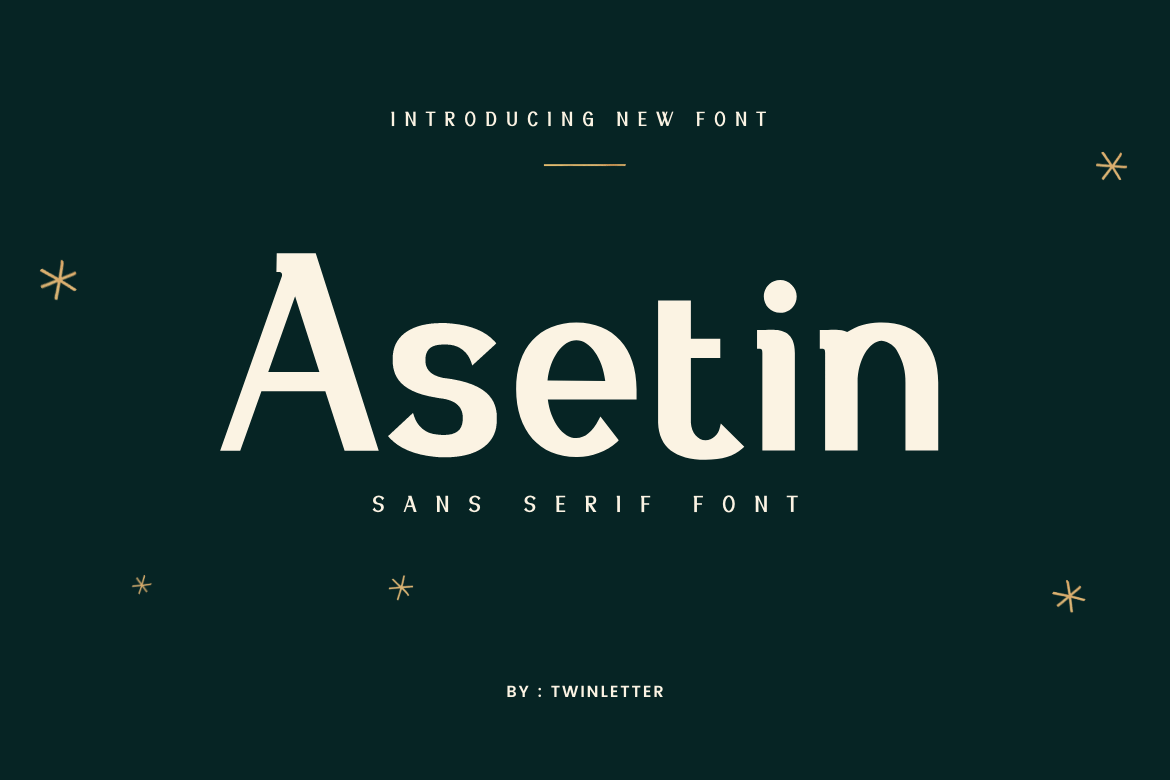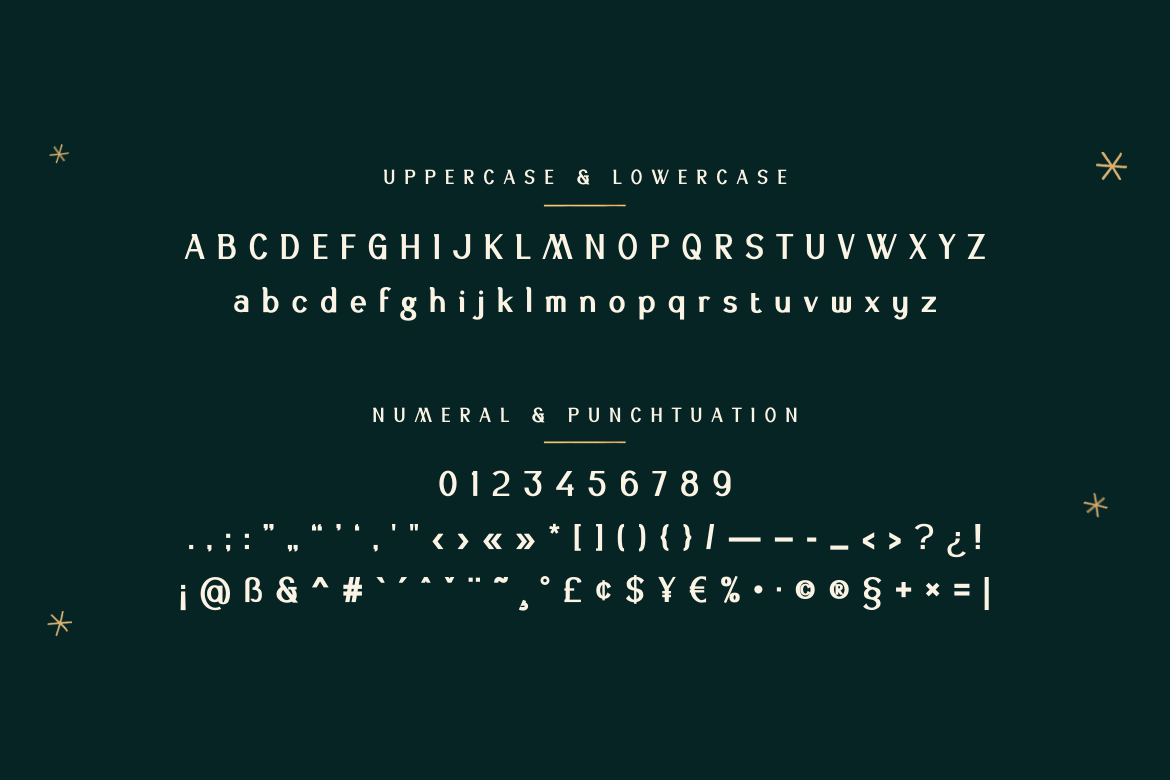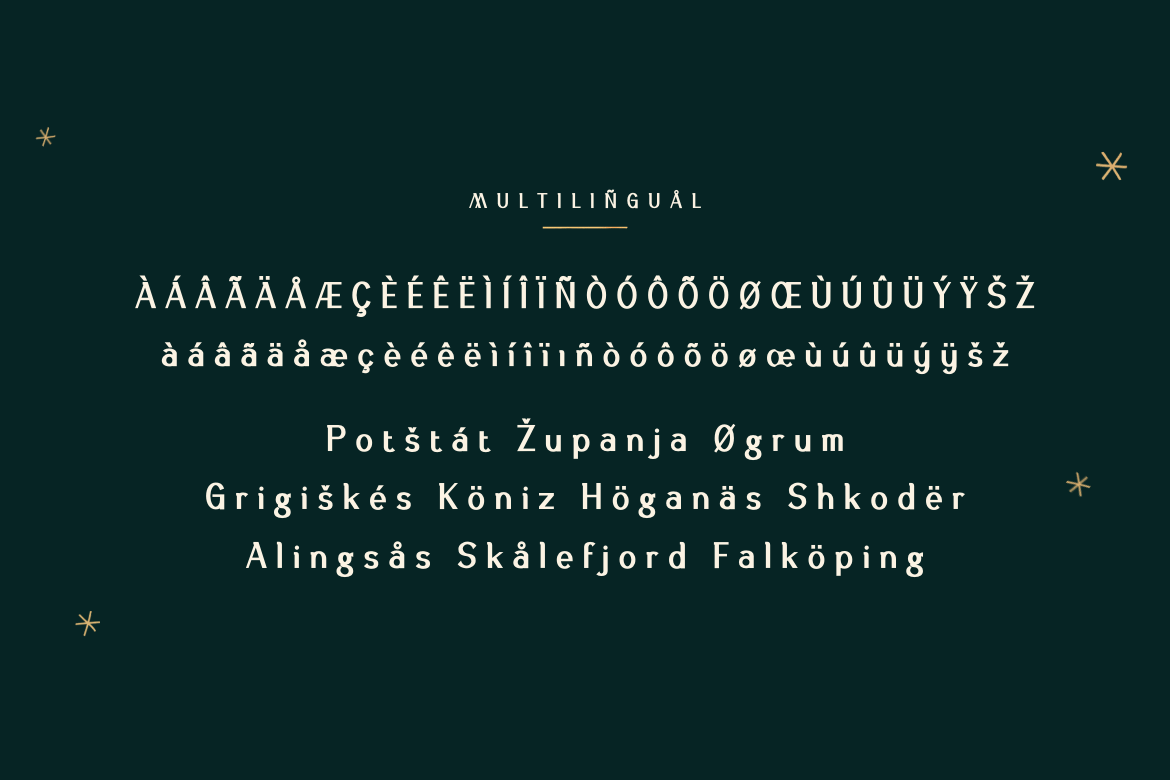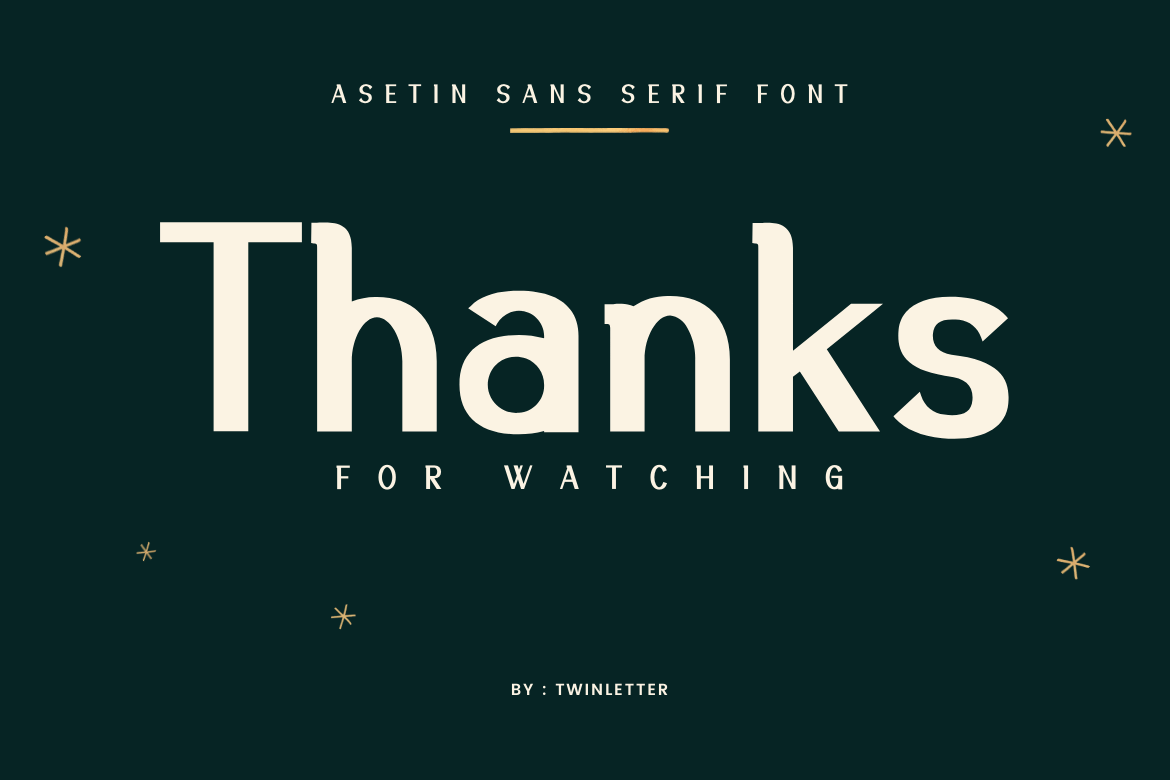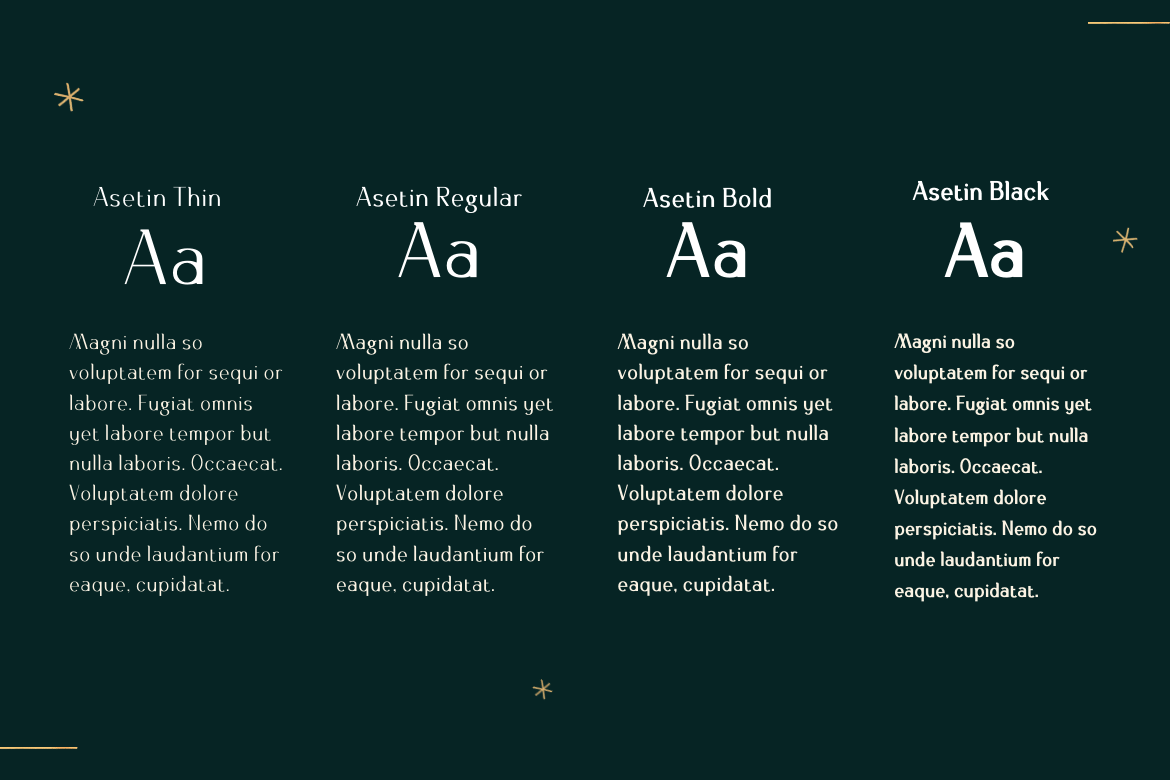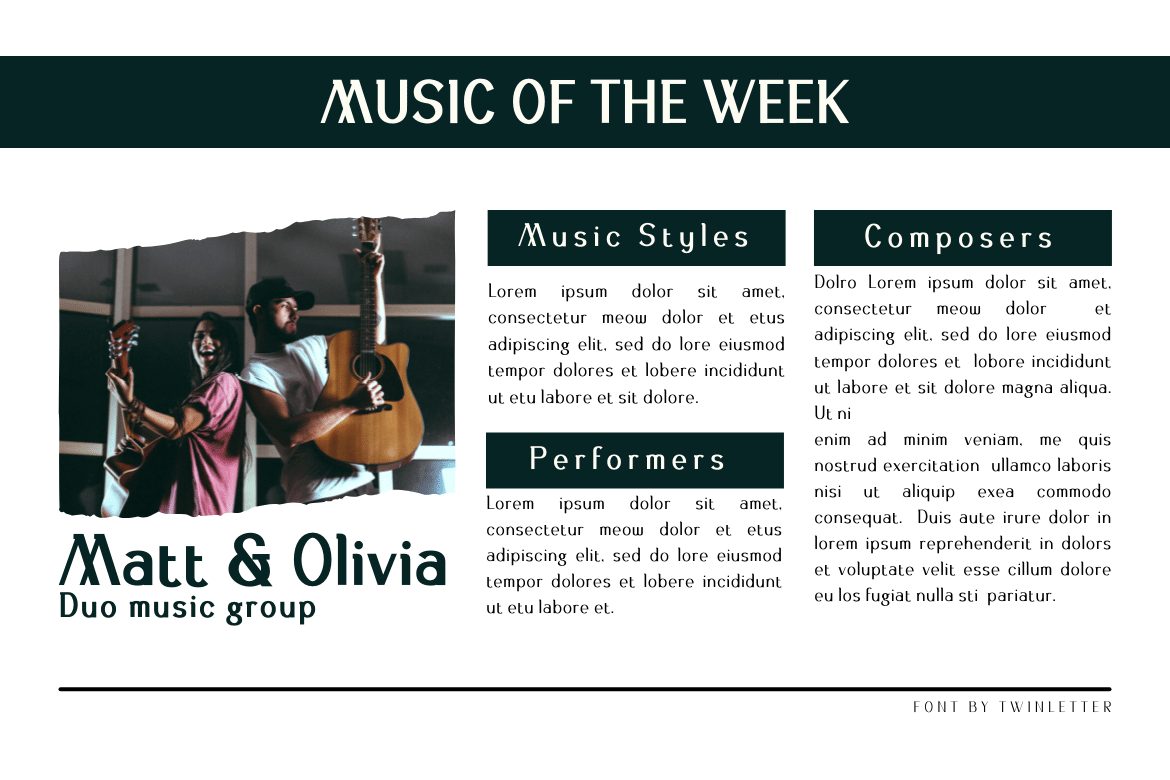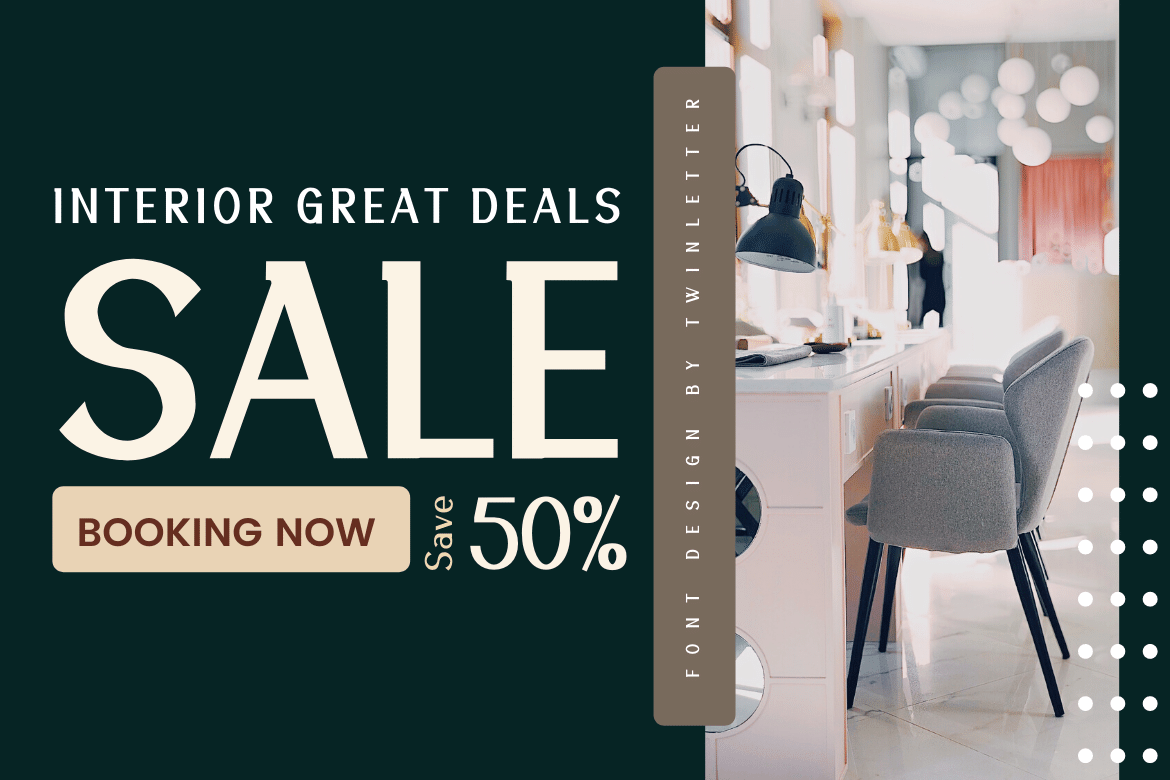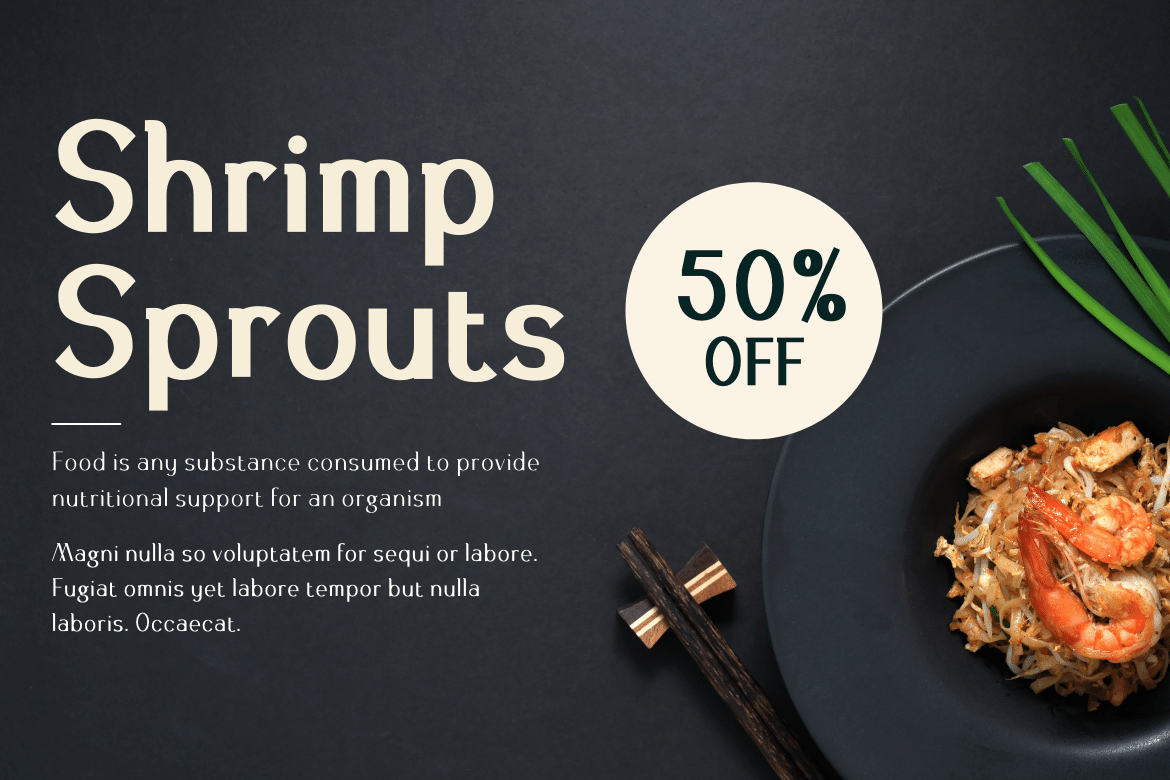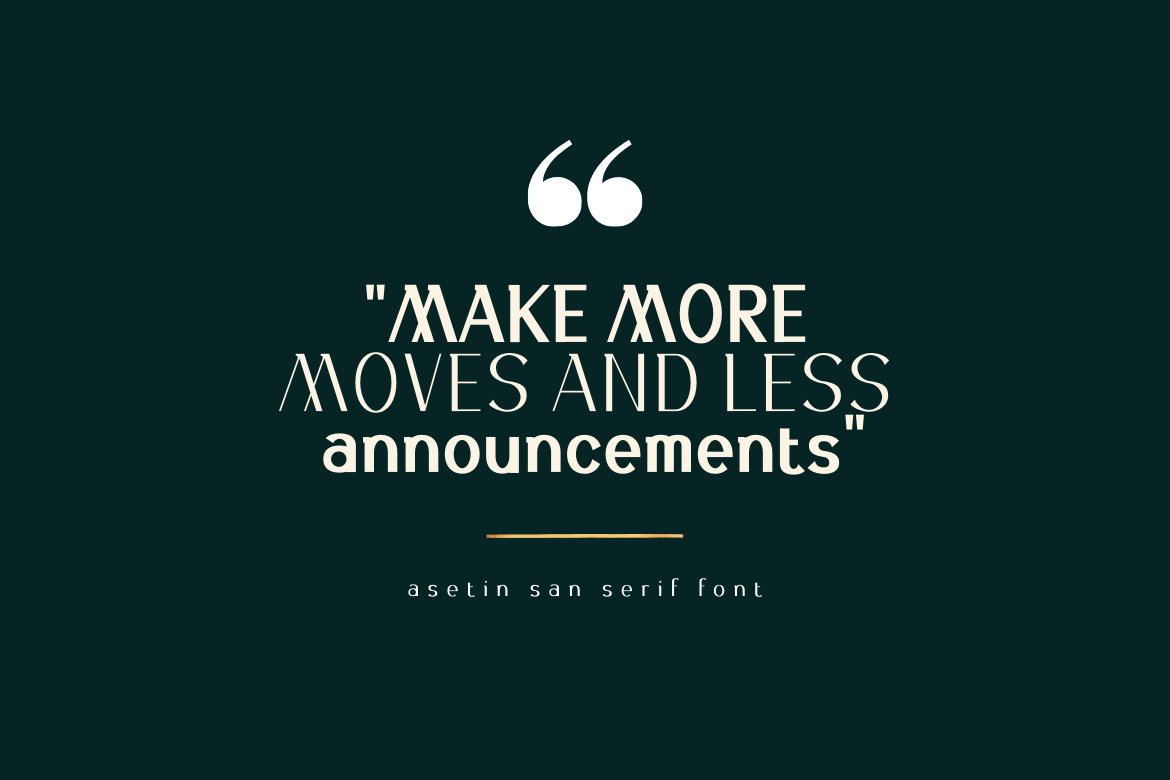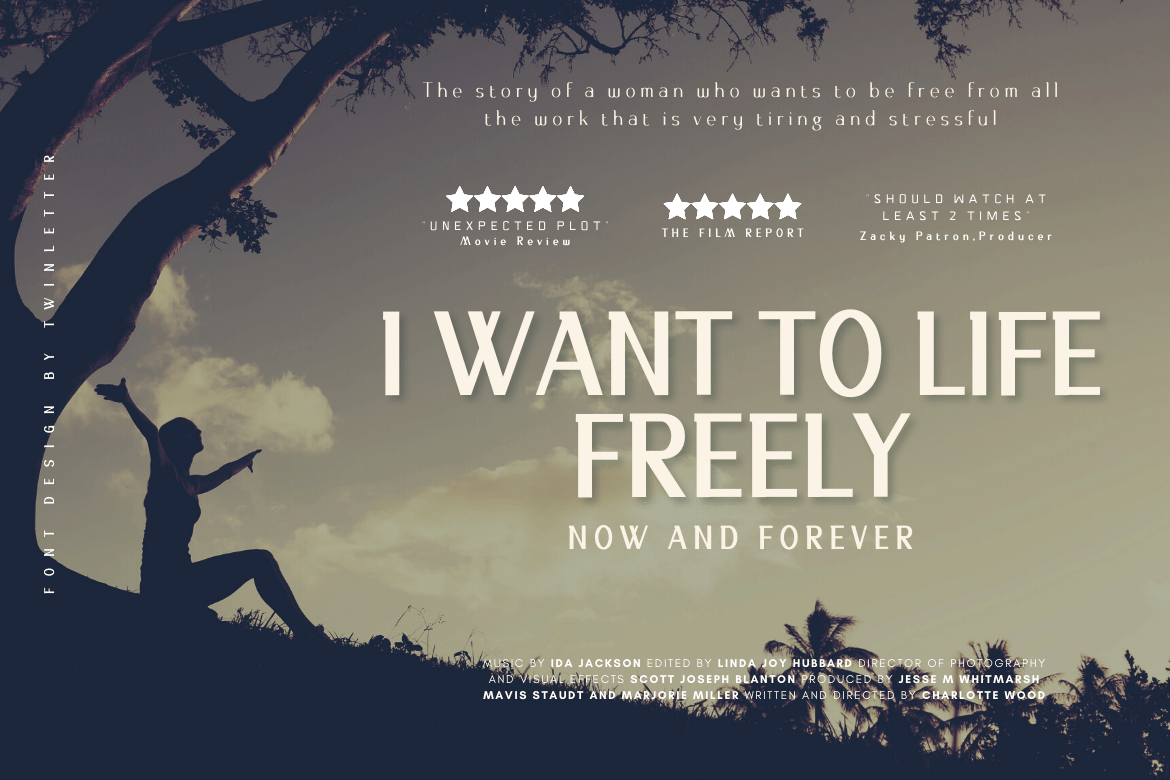
- Asetin
With beautiful curves and minimalistic features, Asetin is a one-of-a-kind and powerful sans-serif typeface. This will offer your project a unique, fresh look that you won’t find anywhere else. Asetin gives an exciting touch to anything you wish to produce, from branding to creative endeavors like websites or eBooks, and beyond.
With Asetin, you can add a touch of contemporary to any project. Its adaptable design makes it ideal for a variety of creative undertakings, so it’ll be a perfect fit for your next project.
- Fonts include multilingual support for; Afrikaans, Albanian, Croatian, Czech, Danish, Dutch, English, Estonian, Finnish, French, German, Hungarian, Italian, Norwegian, Polish, Portuguese, Slovak, Slovenian, Spanish, Swedish